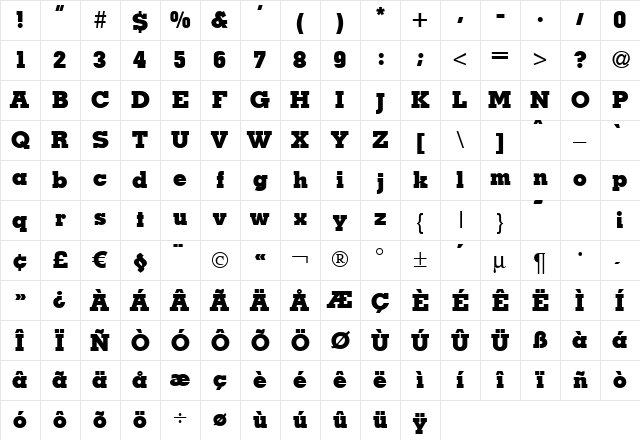
Mesa-Heavy Regular
Complete Mesa-Heavy Regular glyph index. Displaying only characters natively supported by Mesa-Heavy Regular font.
Design Context for Mesa-Heavy
Mesa-Heavy is a composed and adaptable typeface that performs quietly and consistently across a wide range of design contexts.
Pro Tip: Use Mesa-Heavy in both headline and body roles to test its range before committing to a single application.